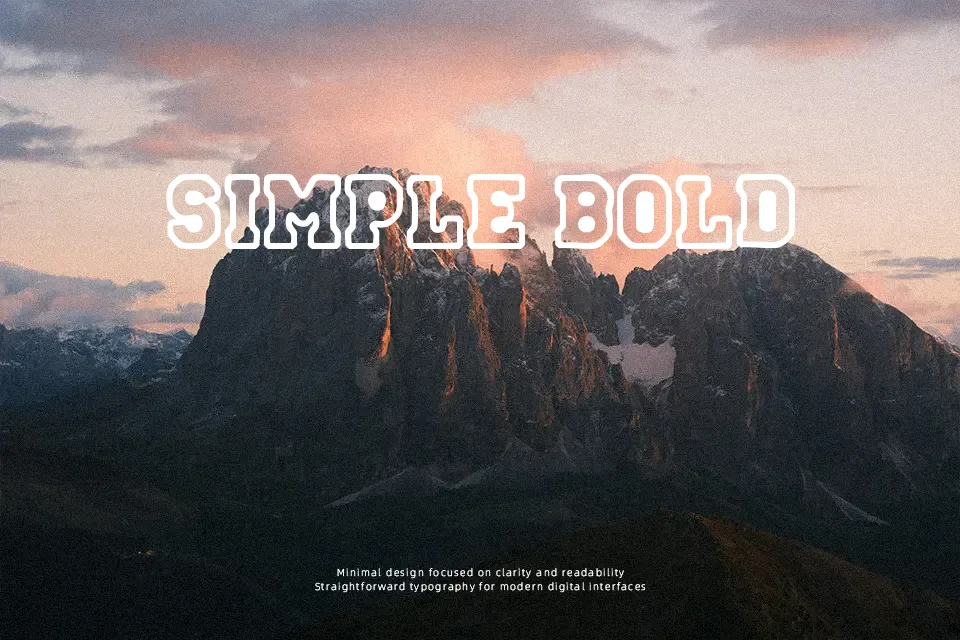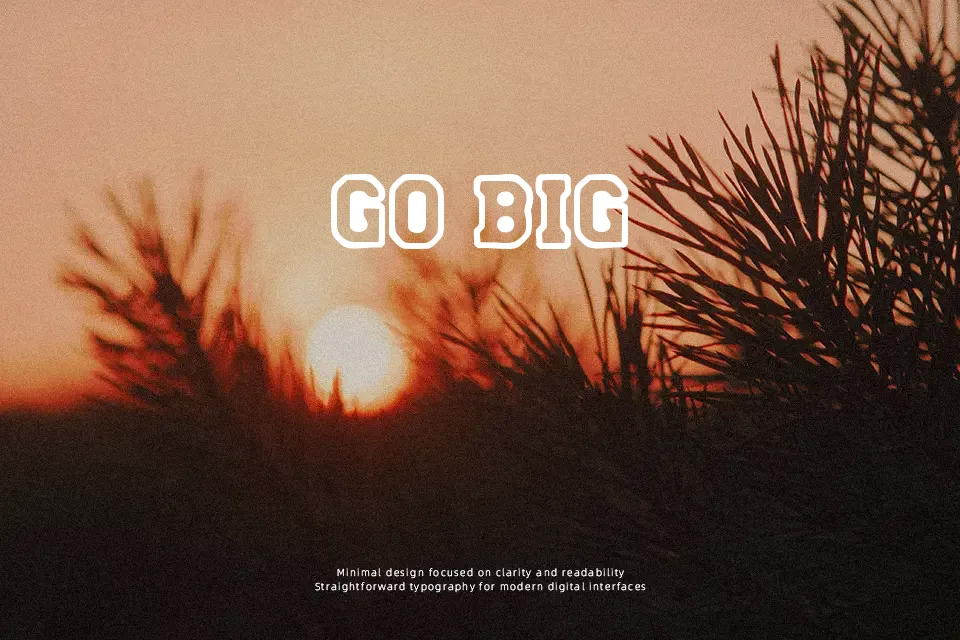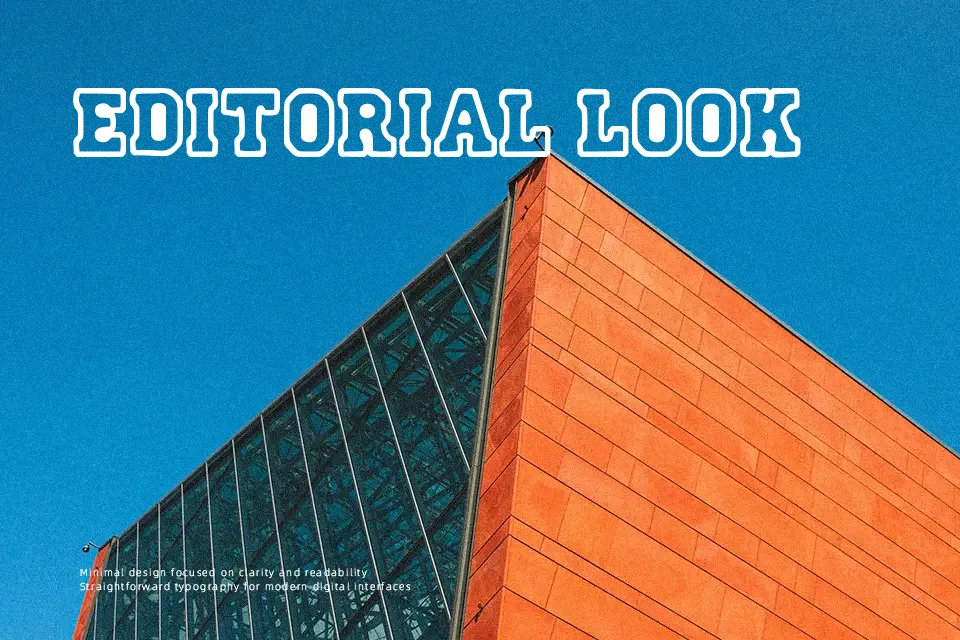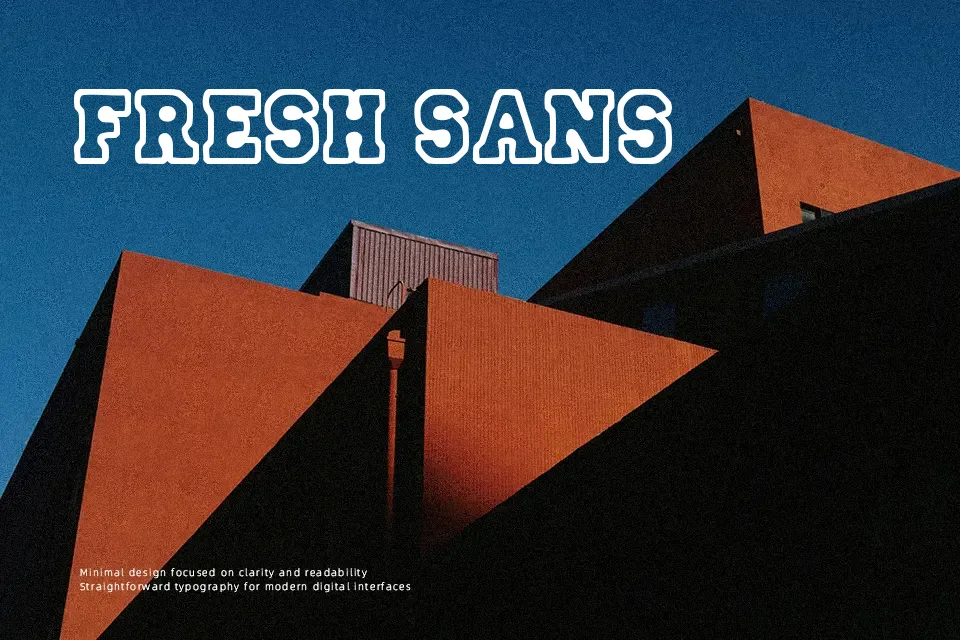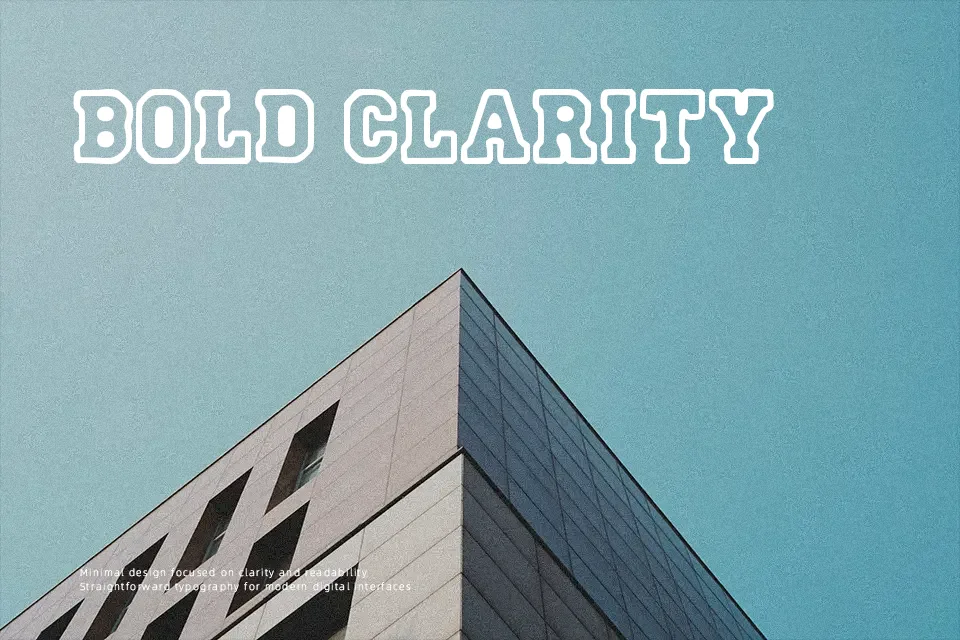
Street College Font
Street College Font features prominent slab serifs, heavy geometric strokes, and compact horizontal proportions inspired by traditional varsity lettering. The letterforms exhibit solid weights with minimal contrast between vertical stems and horizontal bars, creating a dense and commanding rhythm across uppercase strings. Moderate letter spacing prevents the thick forms from colliding, maintaining crisp distinction in large display settings such as sportswear graphics, poster headers, and stadium signage. However, the heavy weight and tight internal counters make the typeface unsuitable for continuous body text or small interface labels, where characters quickly lose legibility. For punchy headlines and athletic branding, the design offers exceptional visual authority.
Best For: varsity sportswear graphics, athletic tournament posters, collegiate merchandise branding, stadium display headlines
Not Ideal For: long paragraph reading, small mobile interface labels, dense corporate documents, technical tables
Perfect for branding, fashion, and headline, with a bold and decorative style.